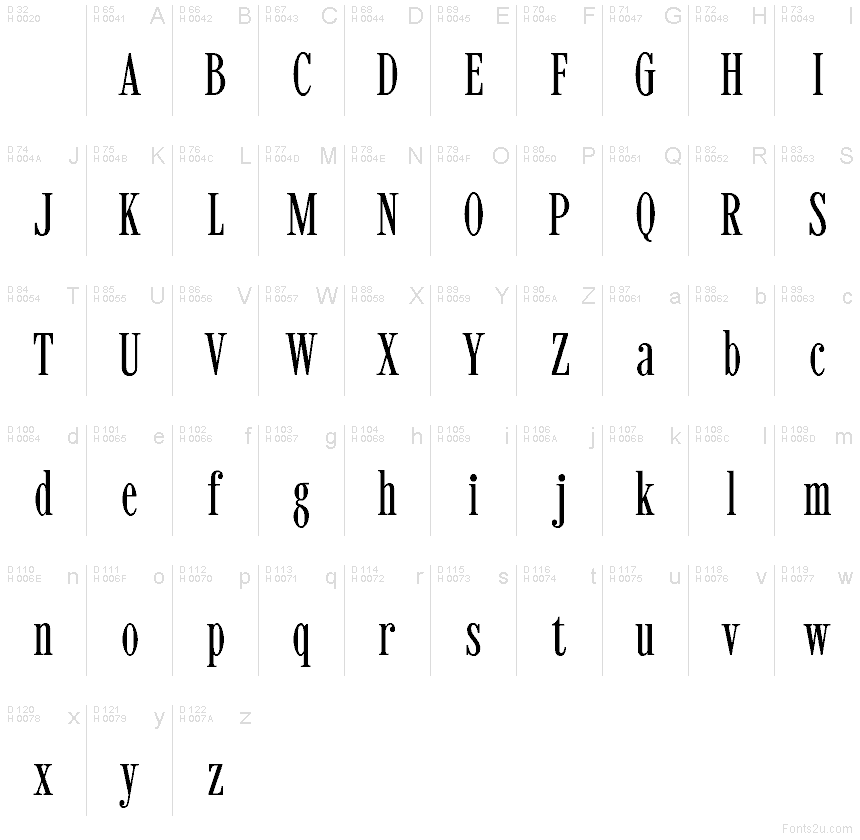
CS Benson Regular Demo
CS Benson font by Craft Supply Co. is a free condensed serif font with flared serifs, thin strokes and moderate contrast. This formal style composed of letters with clean shapes combines traditional elegance and classic influence for a uniform style that delivers messages at various sizes.
A historical resonance is embedded within every character of this set making them perfect for many uses. Get busy creating poster titles, magazine covers, book titles, school brochures, branding items like logos or stationery and much more!